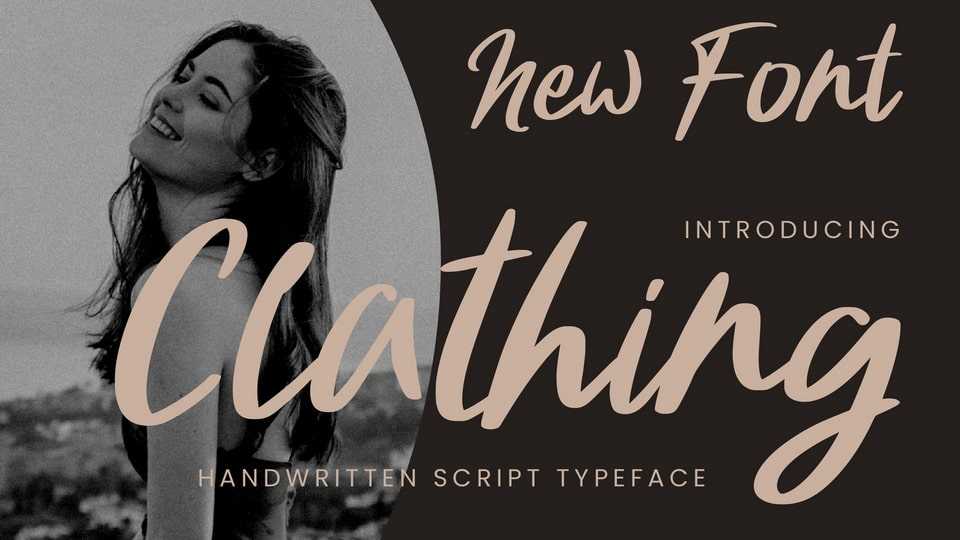
Download Clathing font, a brushed script typeface with an authentic vibe. It is perfect for branding projects, logo, wedding designs, social media posts, advertisements and any projects that need handwriting taste.